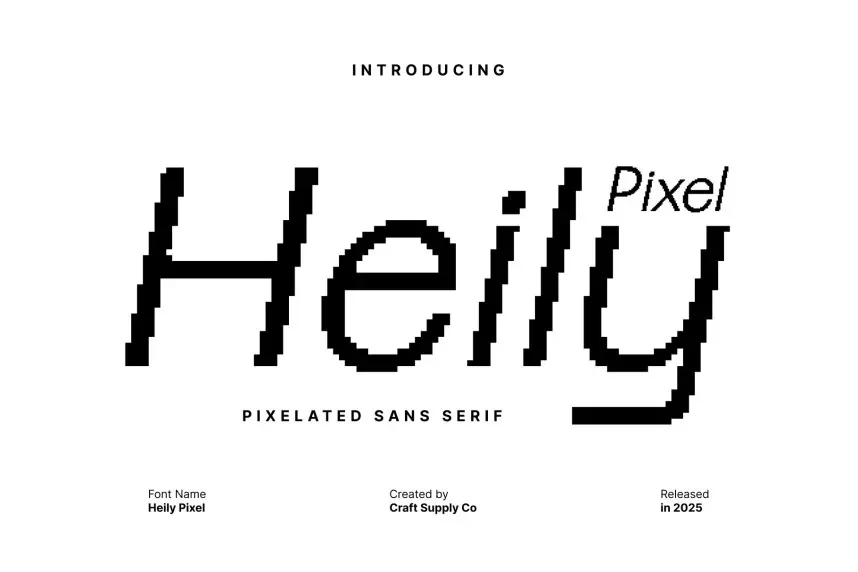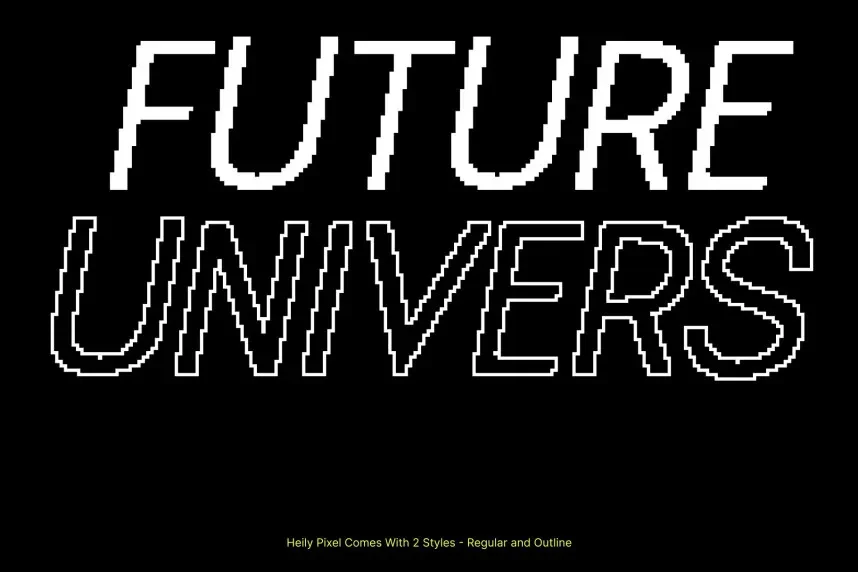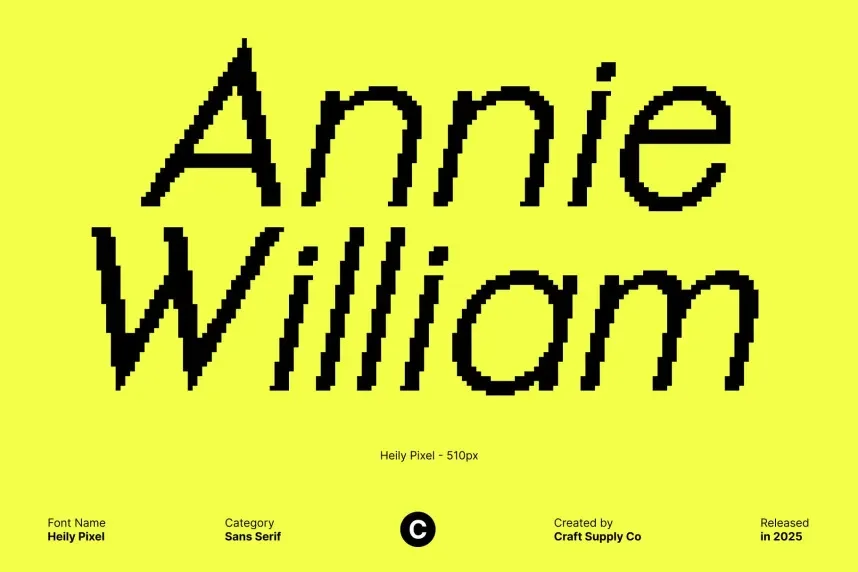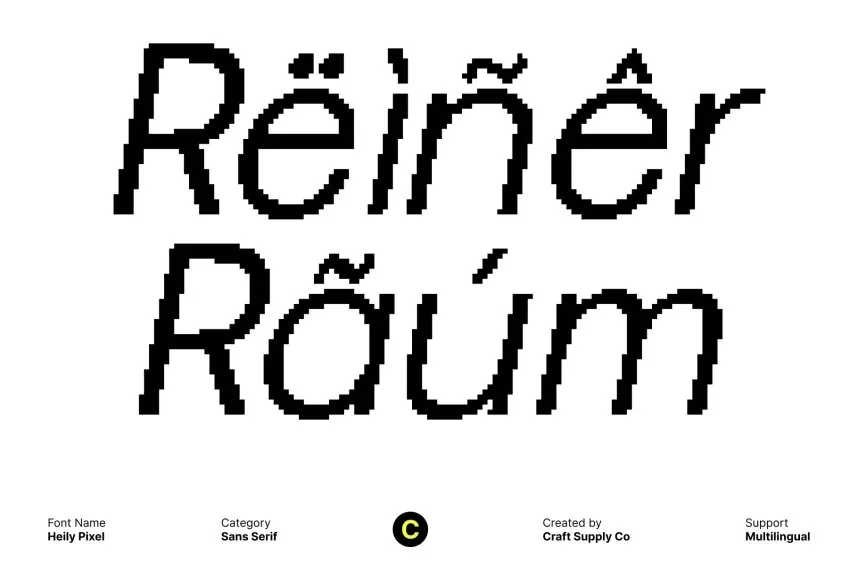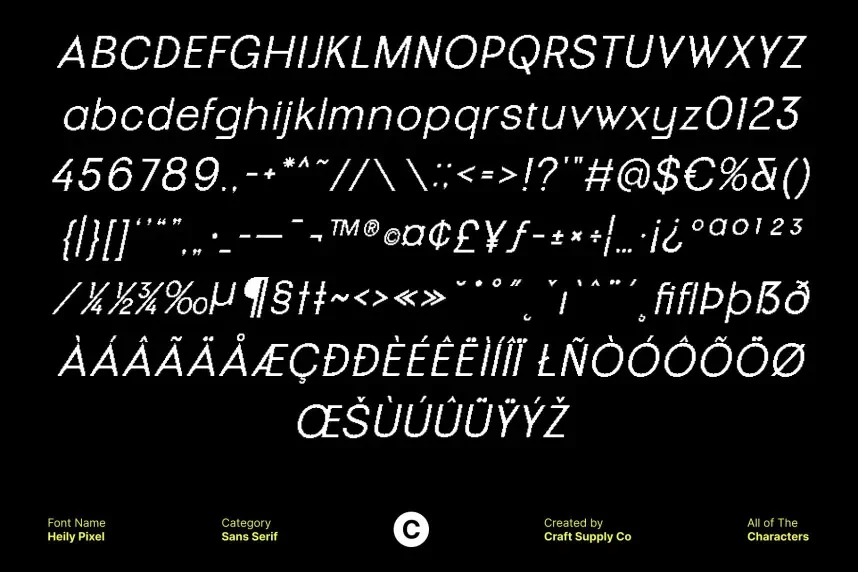
Heily Pixel Font offers a sleek, pixelated design with sharp corners and clean lines. This digital-style font is ideal for tech projects, video game branding, and website headers that require a clear, modern aesthetic with a retro twist.